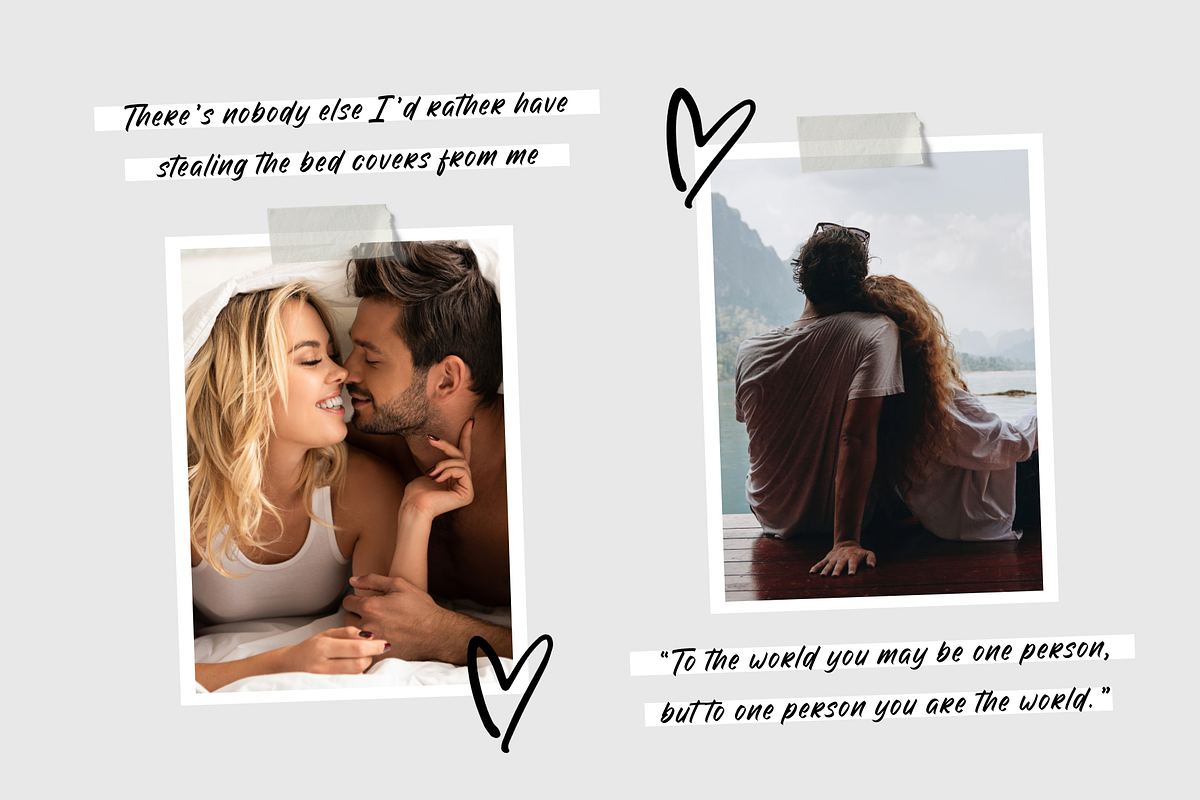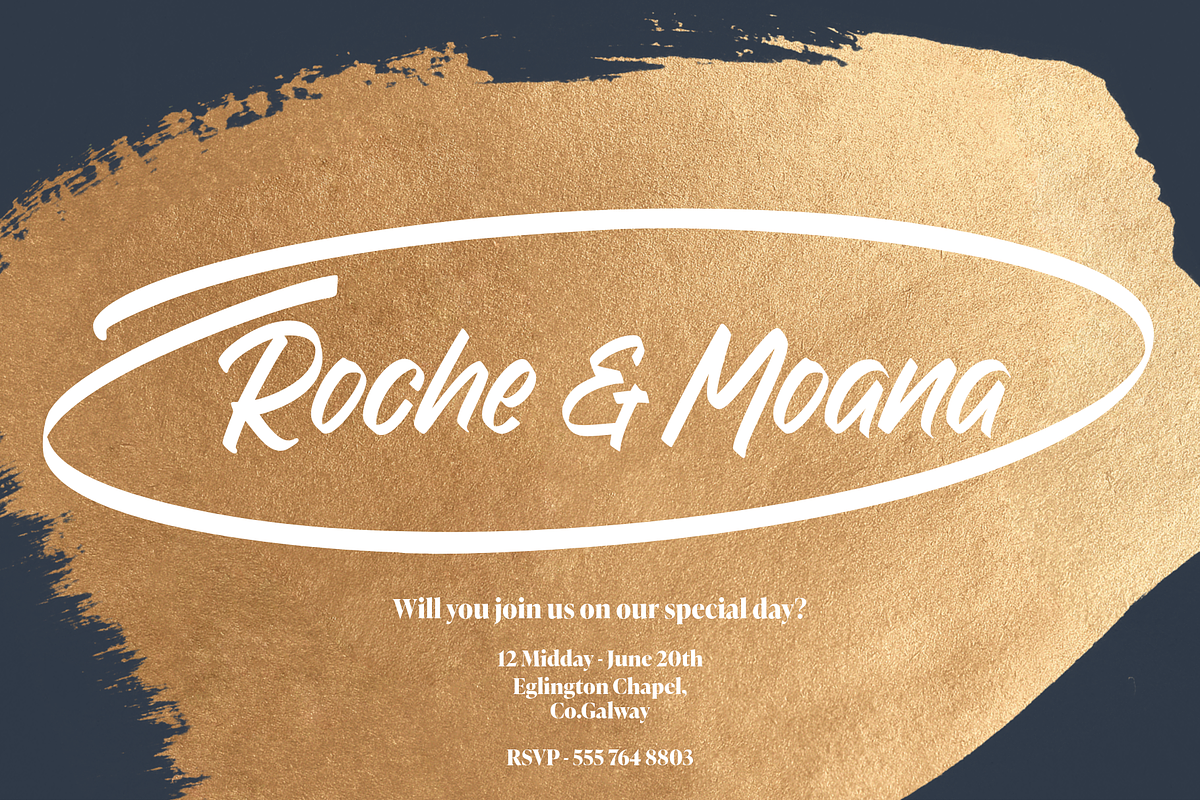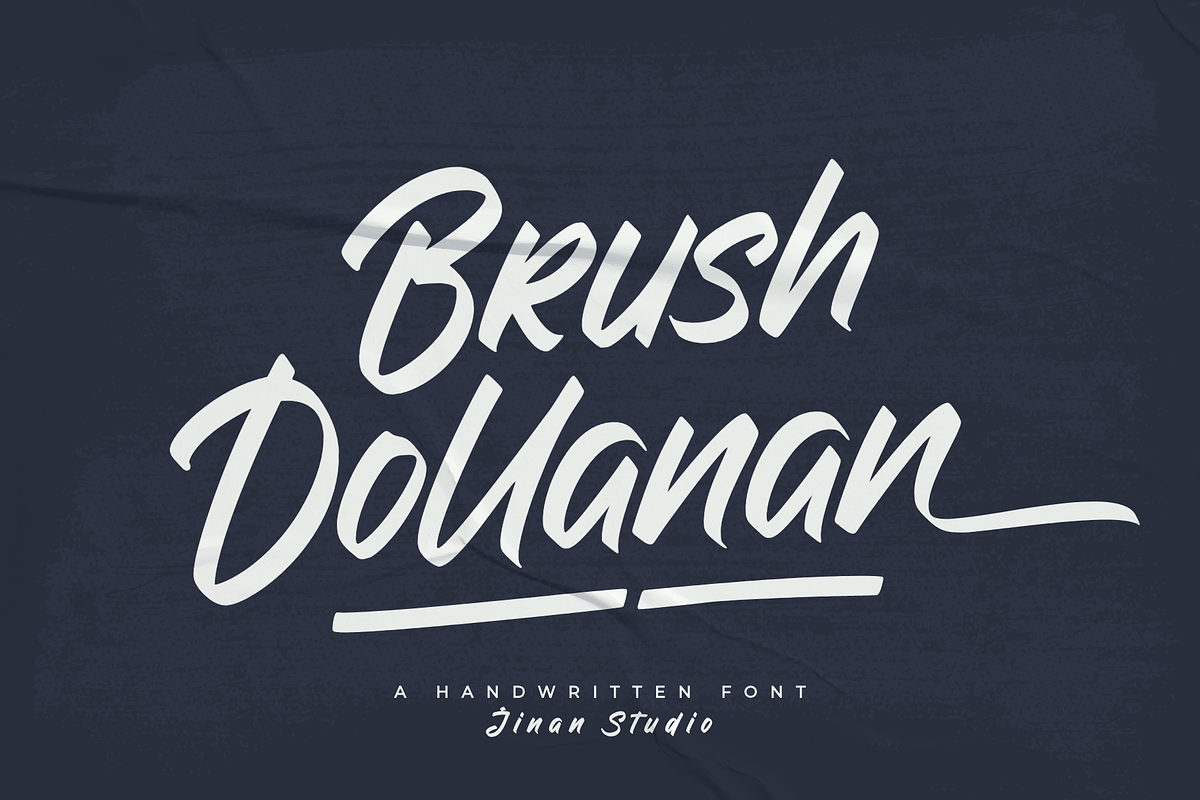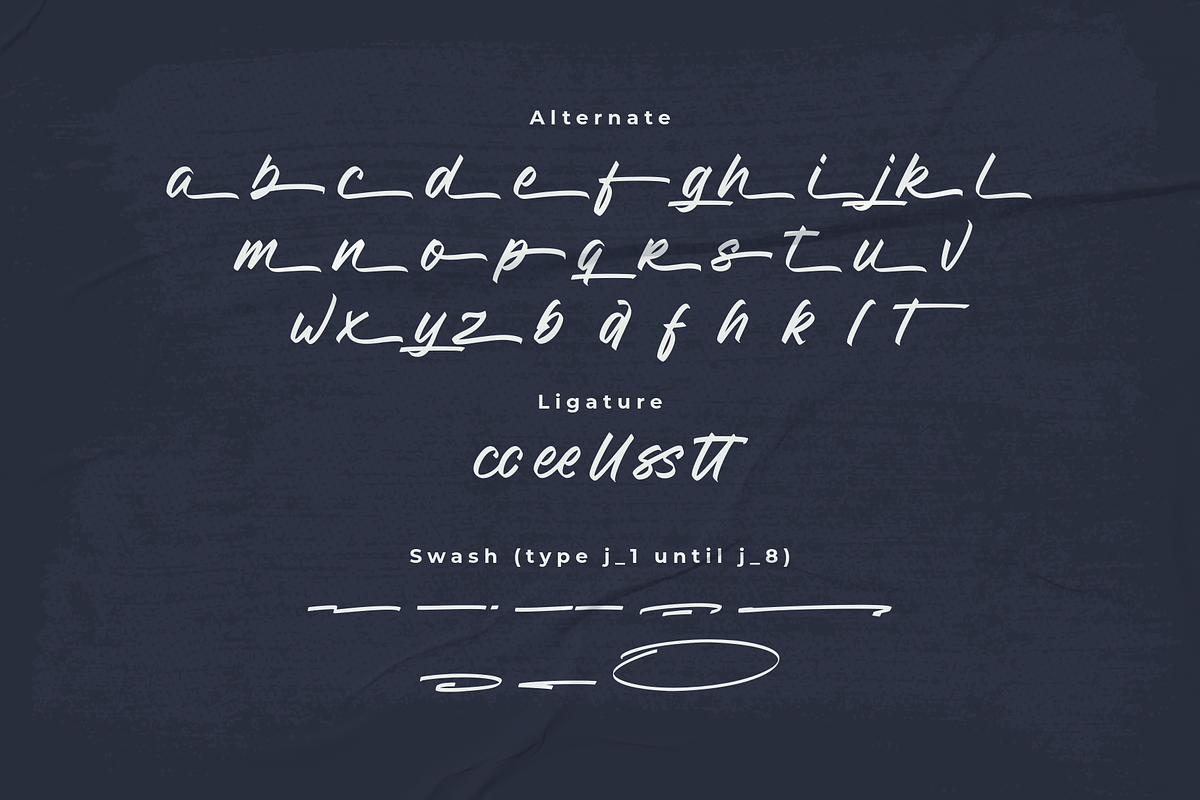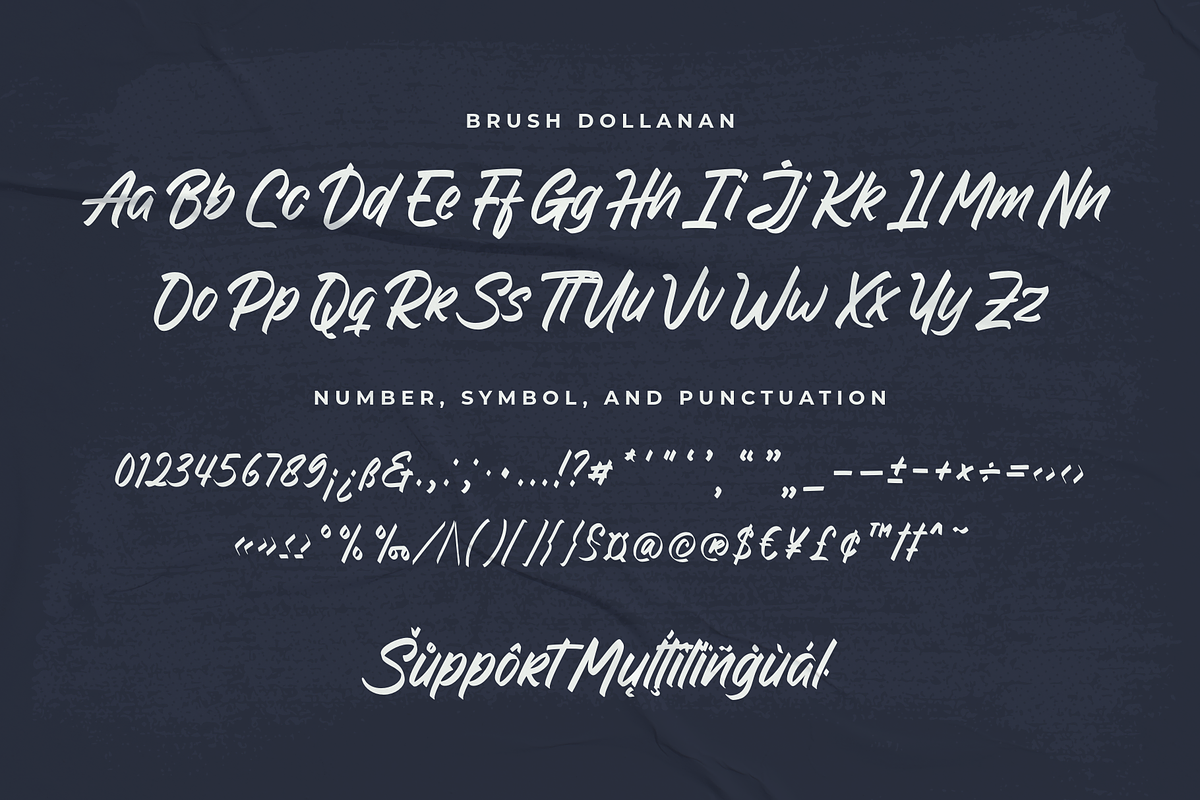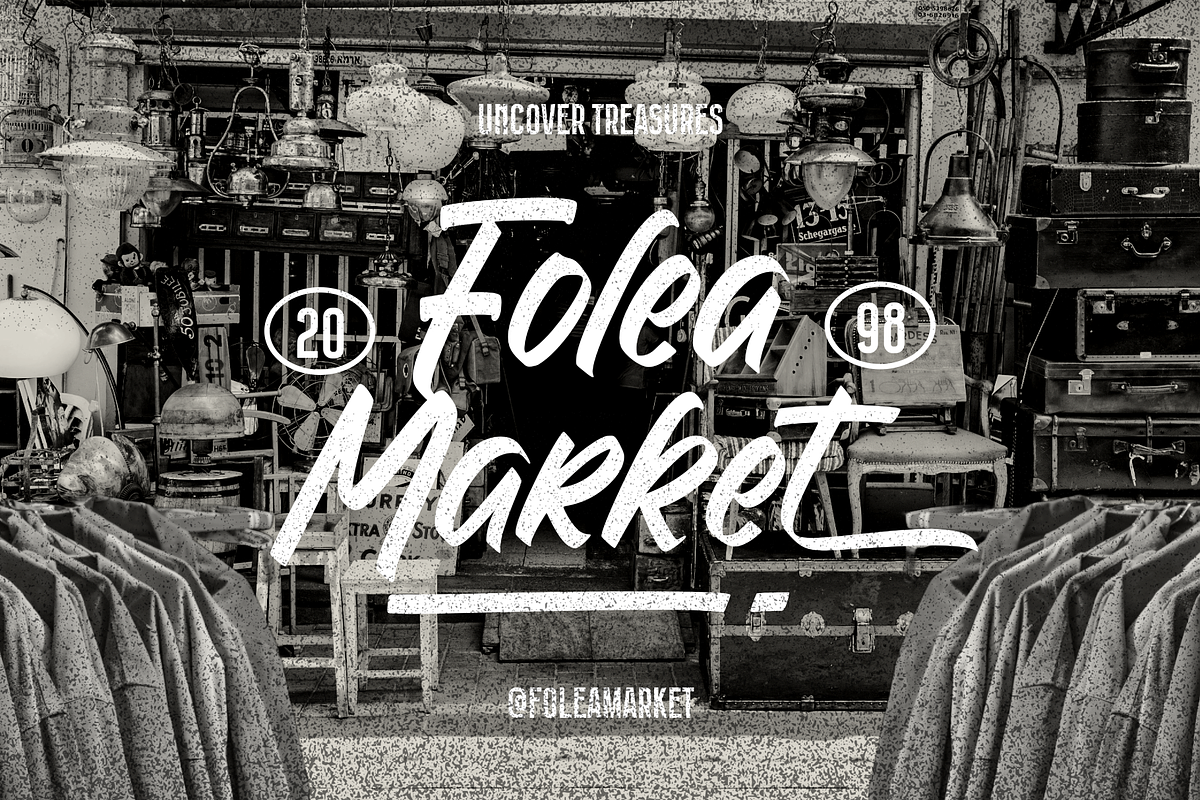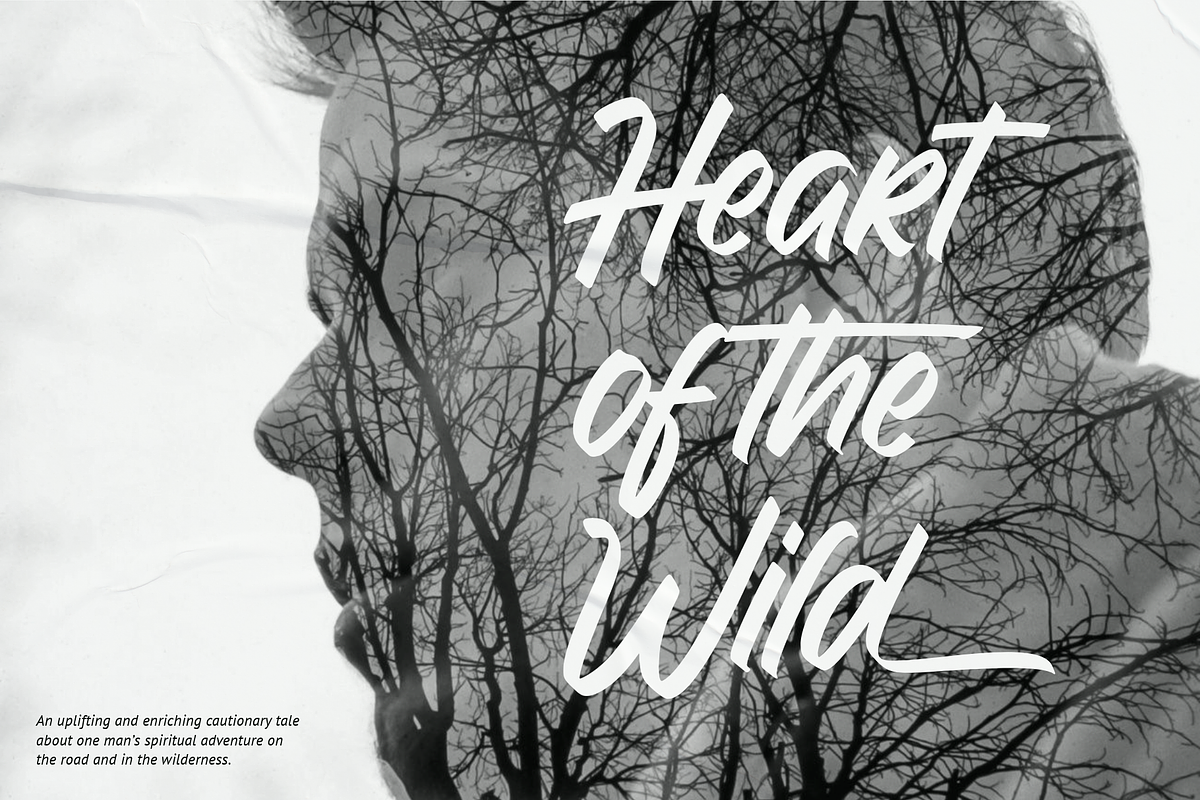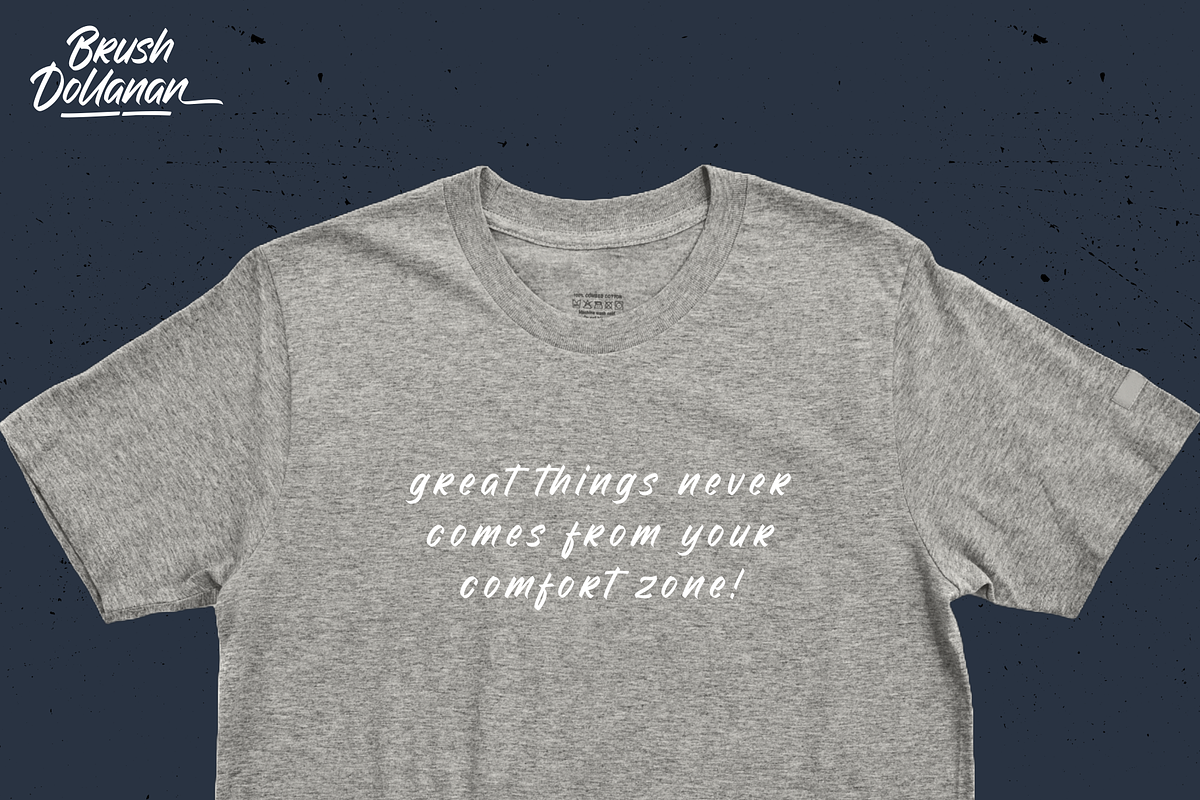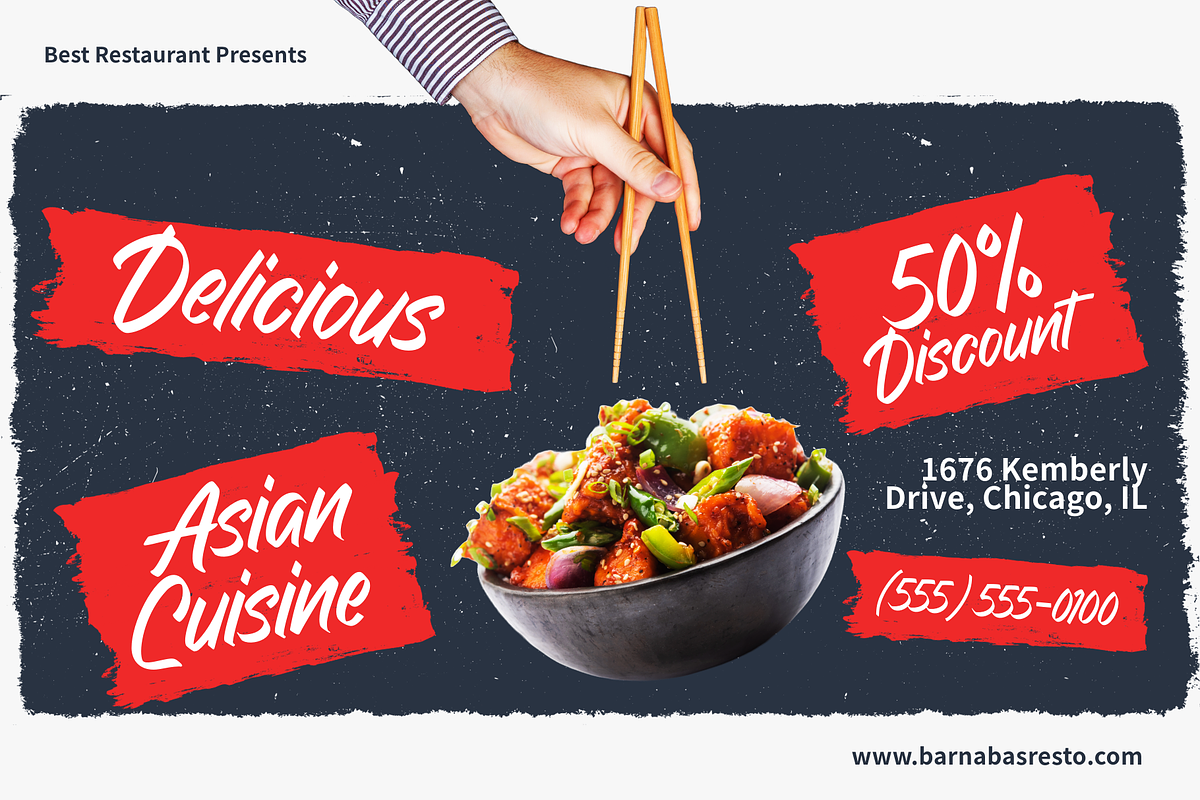
Brush Dollanan - Handwritten Font
Brush Dollanan is a dynamic handwritten font. It features bold, flowing strokes that give it a natural, brush-like appearance, making it perfect for designs that need a personal and creative touch. The font has a modern and energetic feel, ideal for branding, posters, headlines, and any project that benefits from a handcrafted aesthetic. The subtle texture and fluid movement in each letter create a sense of authenticity and spontaneity, capturing the essence of handwriting with a stylish twist.
- A set of uppercase and lowercase glyphs
- Number, symbol, and punctuation
- Alternates, ligatures, and swashes
Type j_1 until j_8 to features swash, ligatures will automatically replace the standard letter pairs whenever available, when using any OpenType capable software.